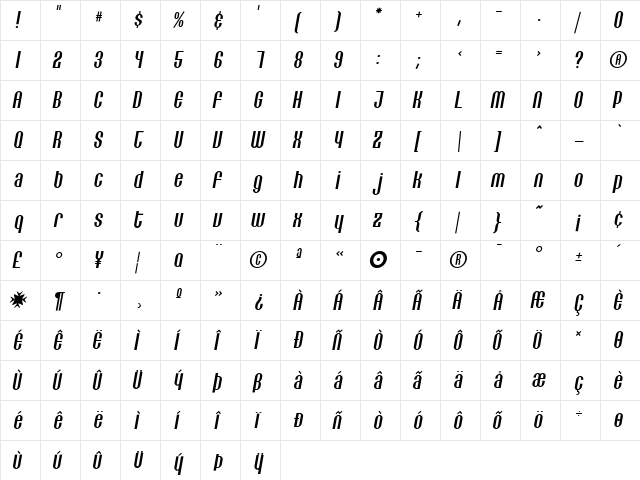
Lithia Medium Italic Font Preview
Lithia Medium Italic
Lithia Medium Italic Font Details
| Style | Medium Italic |
Design Context for Lithia Typeface
Lithia is a composed and adaptable typeface that performs quietly and consistently across a wide range of design contexts. The dynamic lean of this cut emphasises speed and emphasis in any layout.
Pro Tip: Try Lithia for annotation and caption copy alongside an upright companion — the contrast in angle creates a dynamic but ordered typographic system.